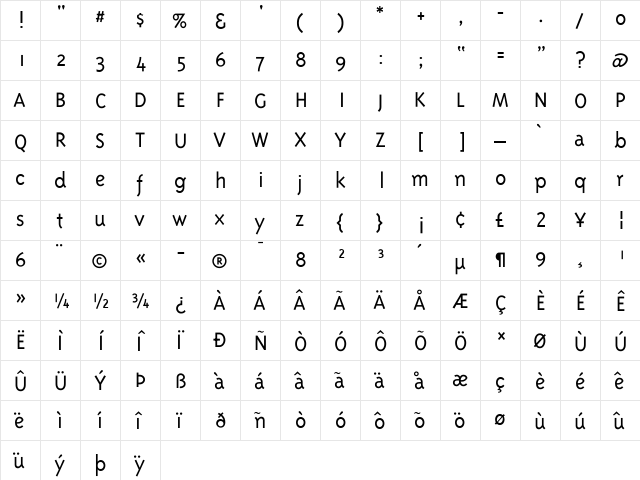
TriplexLight Regular
Design Context for TriplexLight Typeface
TriplexLight takes a measured approach to typography — its balanced proportions and neutral character make it a reliable workhorse for both digital and print work. The delicate stroke weight brings airiness and refinement to layouts.